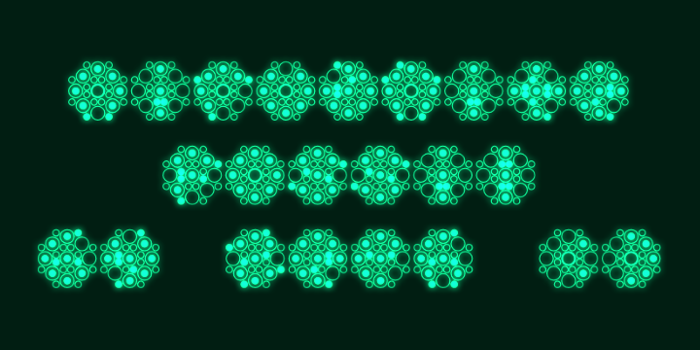
Nirvanite Fossil Font
About Nirvanite Fossil Font
Alternate take on Nirvanite, this time with bullseyes rather than solid circles as the large segments.